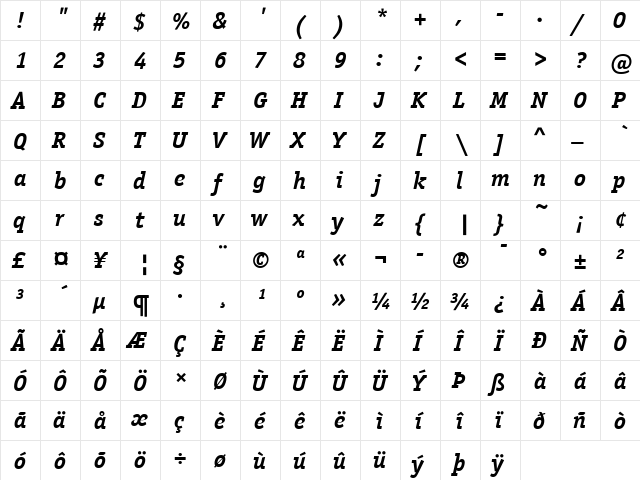
Officina Serif ITC Bold Italic Font Preview
Design Context for Officina Serif ITC Typeface
Officina Serif ITC brings classic typographic sensibility to the table — its serifs and measured letterforms reflect centuries of print heritage. The dynamic lean of this cut emphasises speed and emphasis in any layout. The heavy weight commands attention and anchors typographic hierarchies.